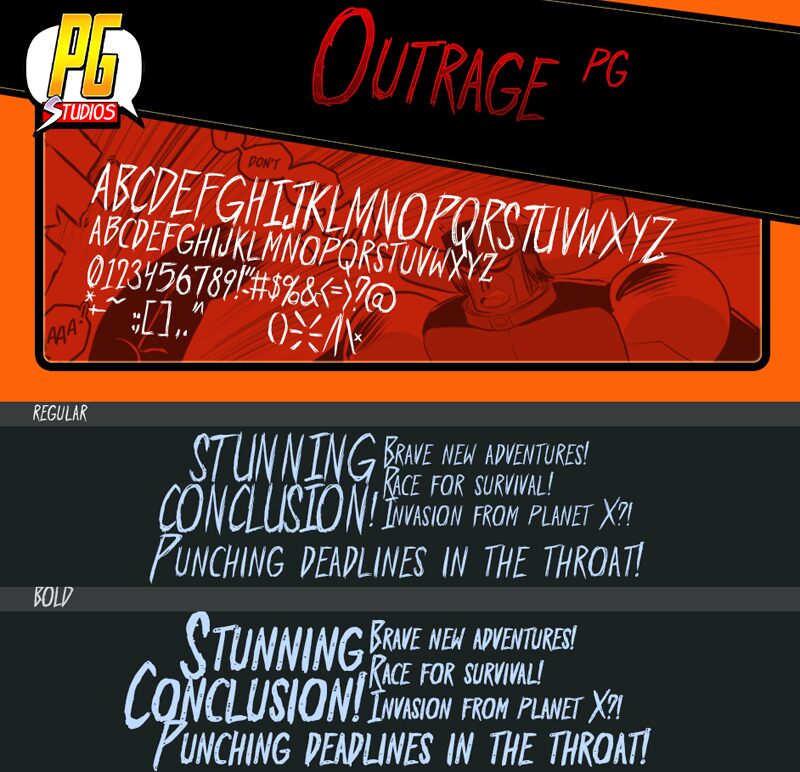
Outrage PG Bold
Outrage PG Bold from the Outrage PG family exudes a raw energy and edgy aesthetic that's hard to ignore. Crafted by the innovative PressGang Studios, this script font embodies a 'trash' style that's anything but ordinary. Its semi-condensed width gives it a gritty compactness that makes each letter leap off the page with rebellious flair.
The handcrafted strokes and deliberate irregularities of Outrage PG Bold offer designers an authentic, urban vibe perfect for projects that aim to stand out. Whether used in streetwear designs, music album covers, or eye-catching posters, this font adds an unapologetic punch to any creative endeavor.
With its distinctive texture and bold presence, Outrage PG Bold is not just a choice but a statement – ideal for conveying messages that demand attention while oozing contemporary cool.